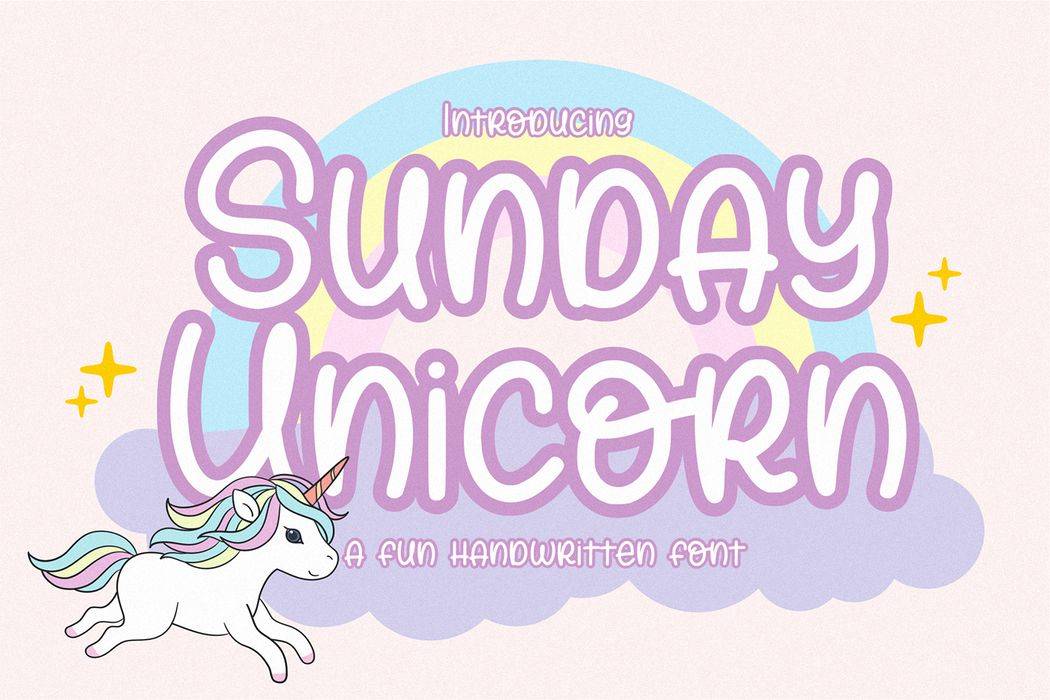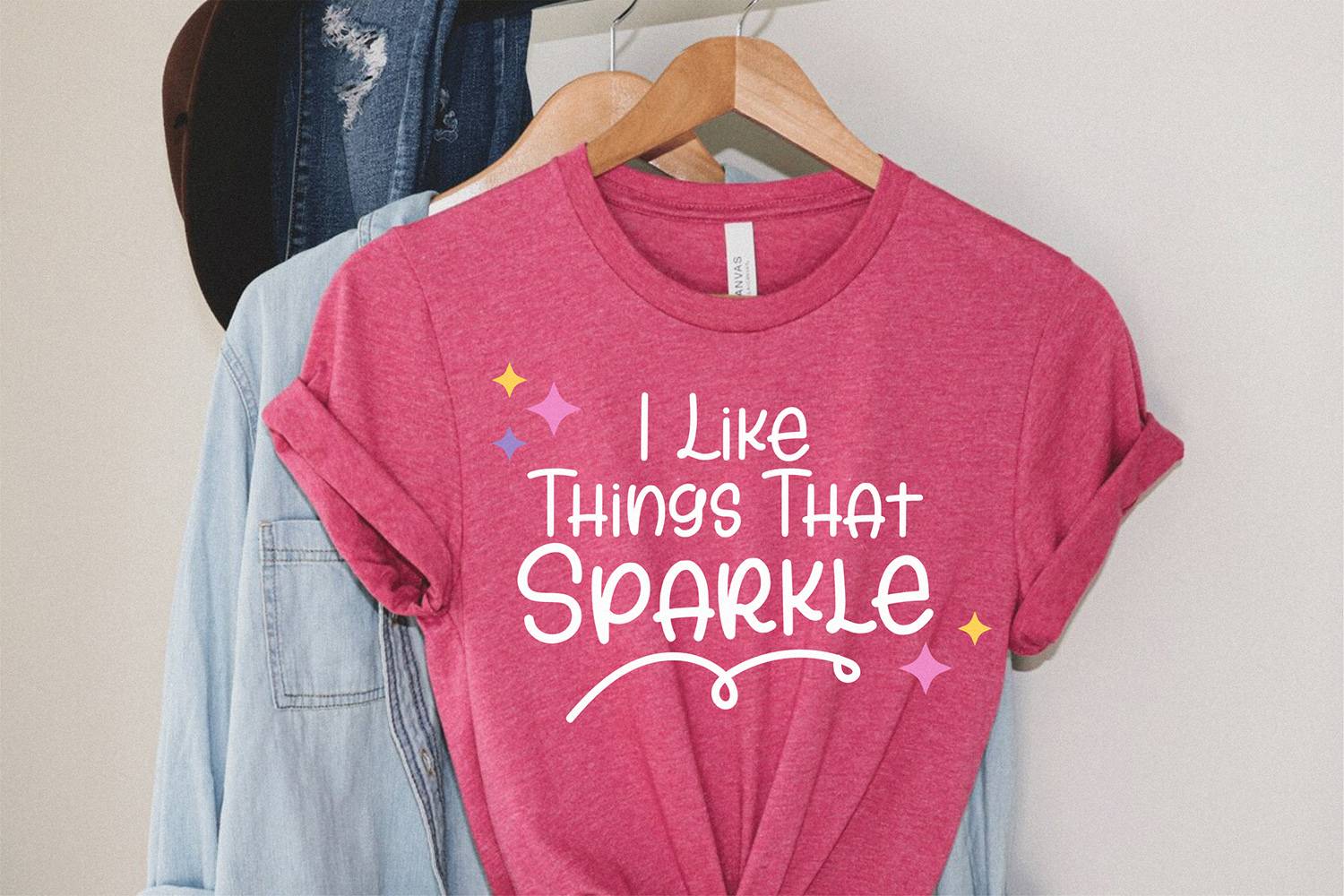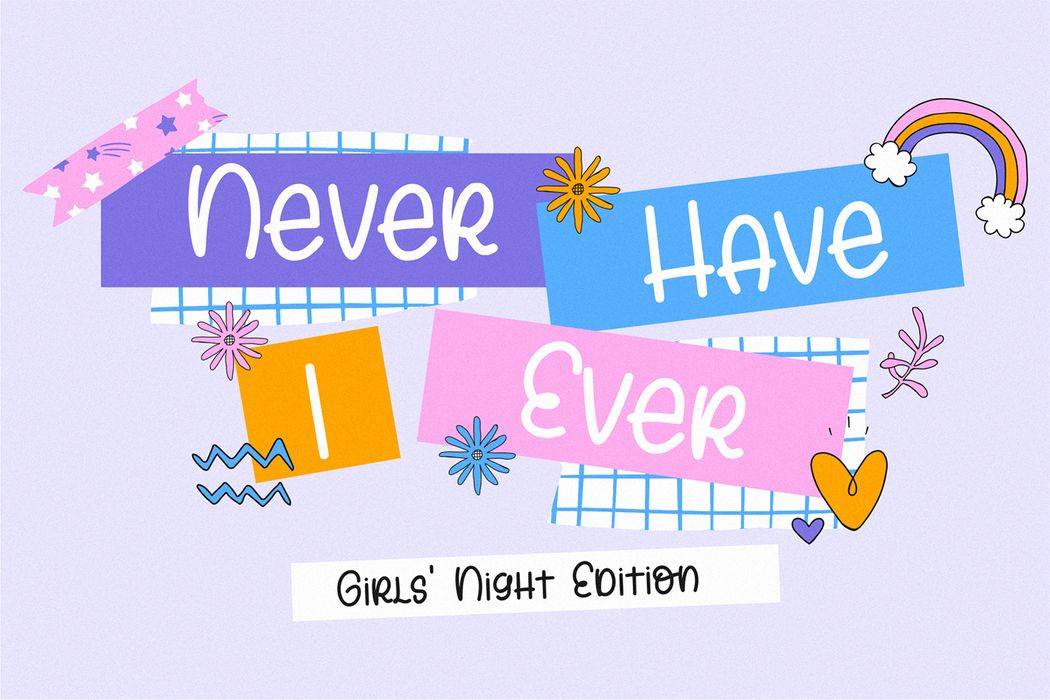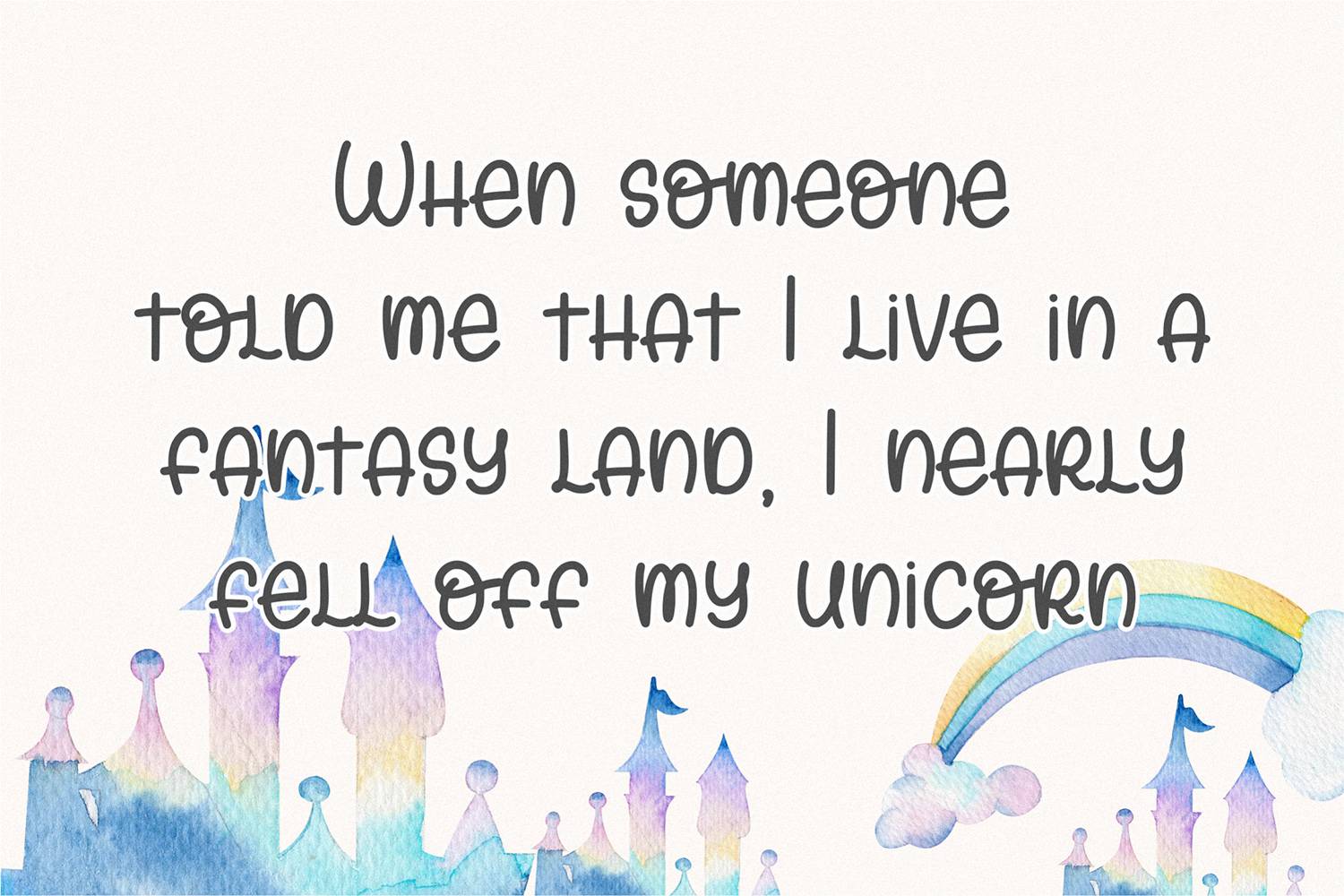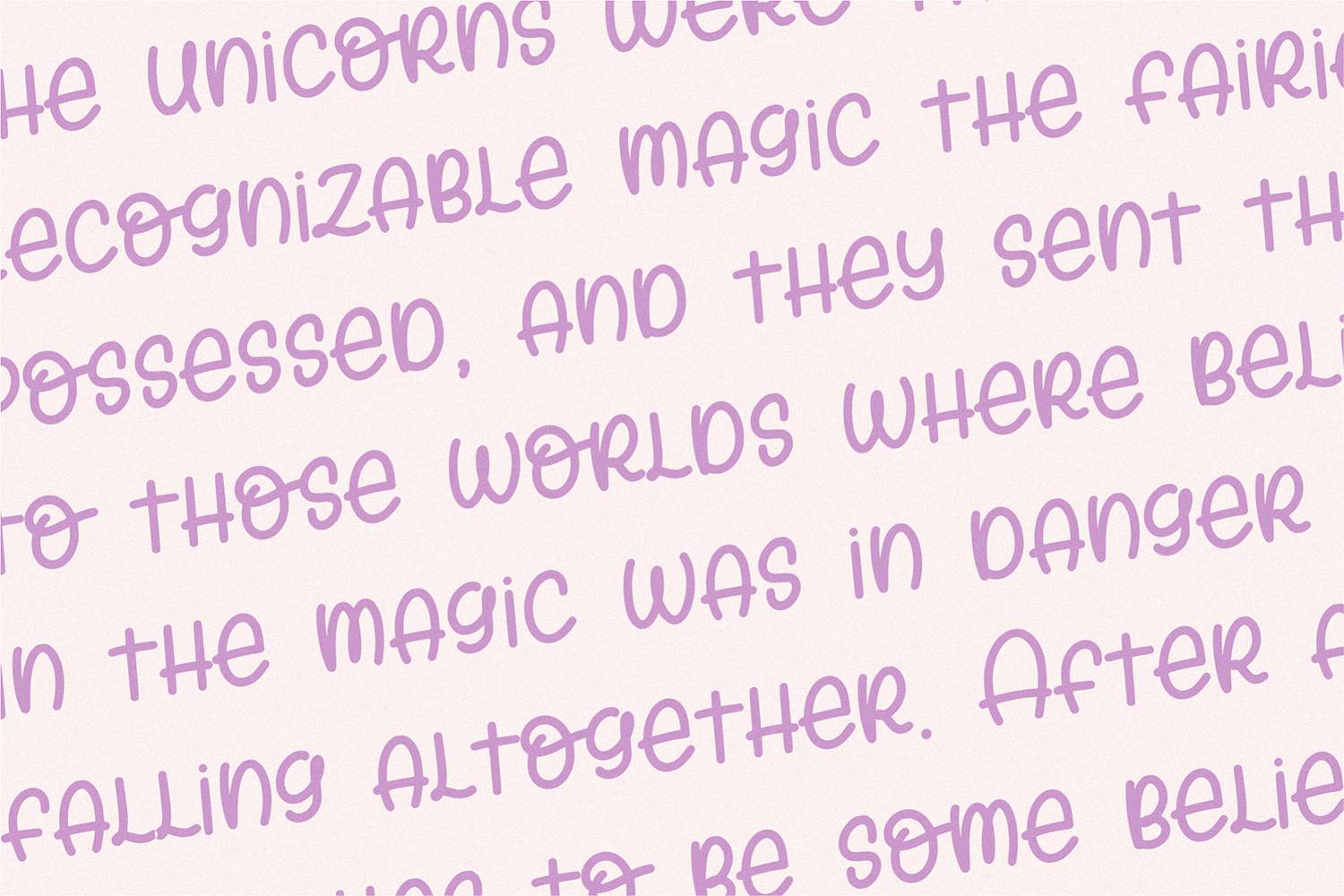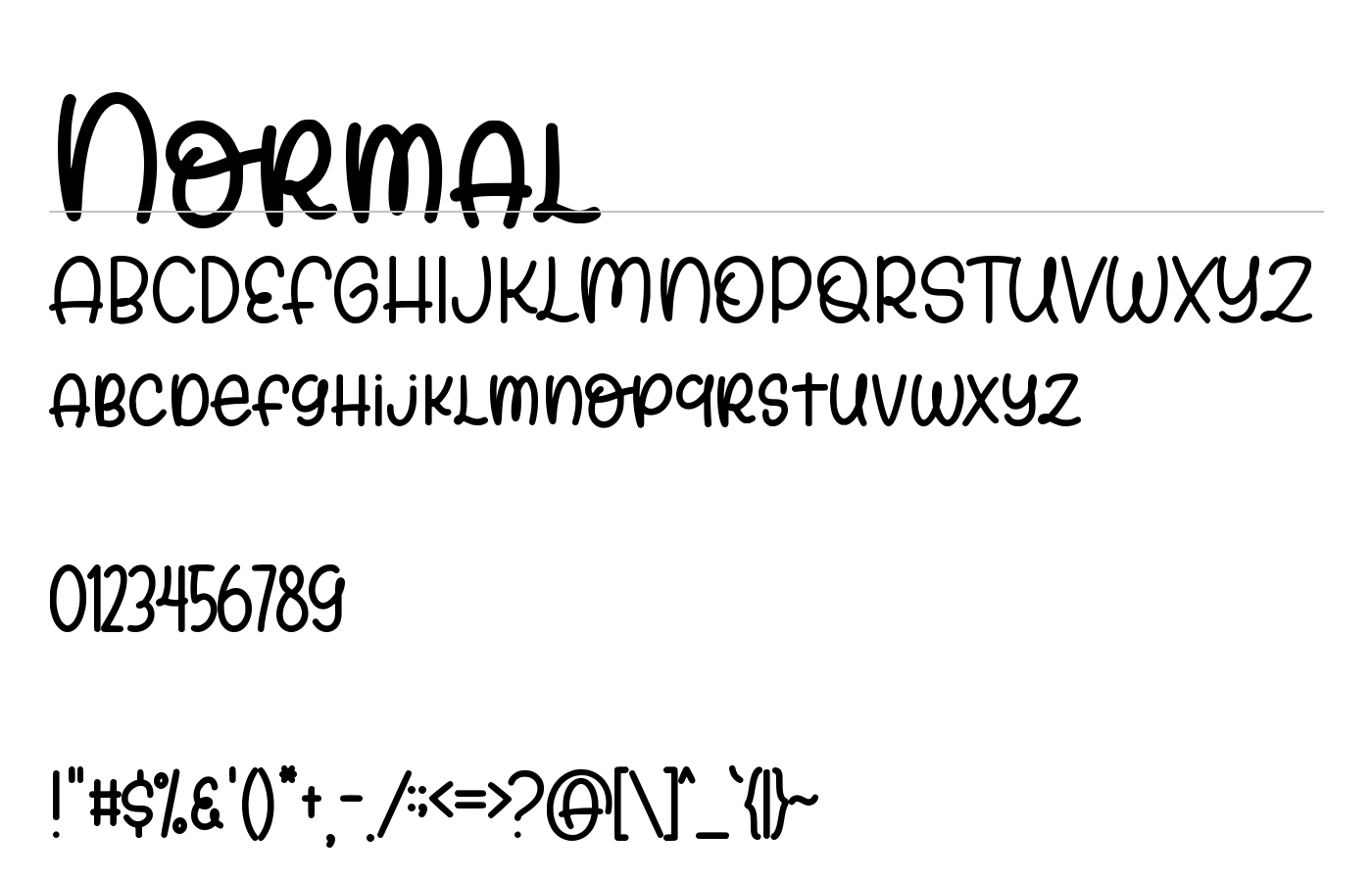
Sunday Unicorn Font is a playful, quirky handwritten sans serif with a casual, friendly feel. Its light weight, rounded strokes, and tall x-height make it easy to read while conveying a fun, informal personality, perfect for creative projects, children’s books, or whimsical branding. This font works well for headlines, logos, and packaging where a unique, approachable look is desired.
Sunday Unicorn Font
About Sunday Unicorn Font